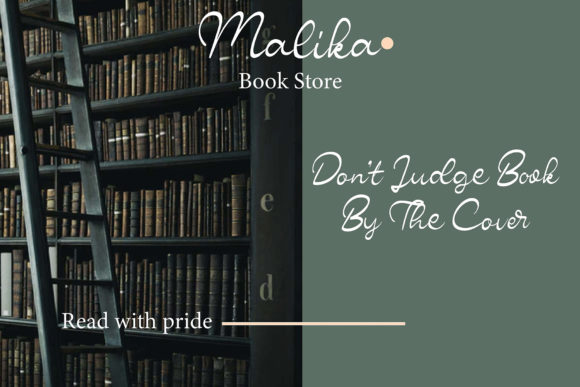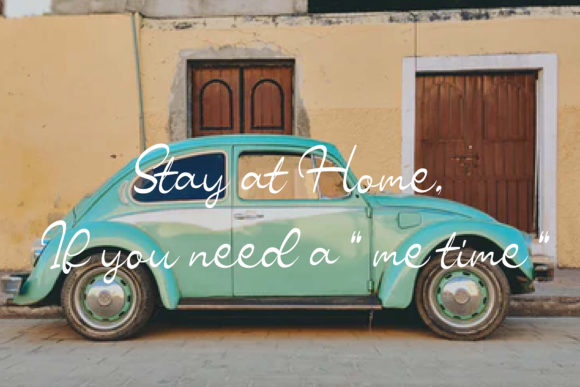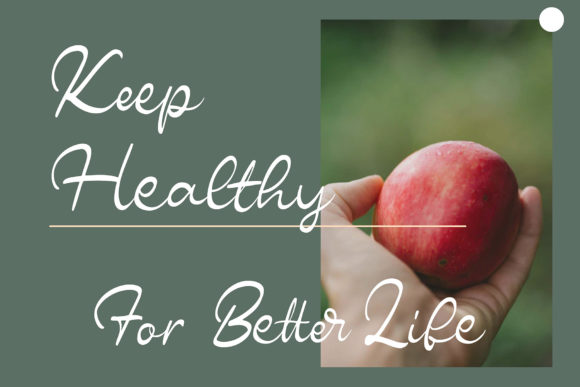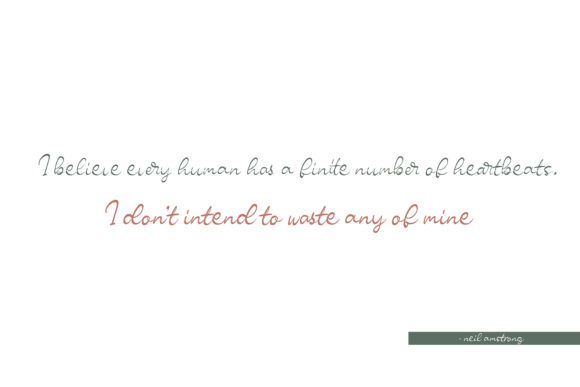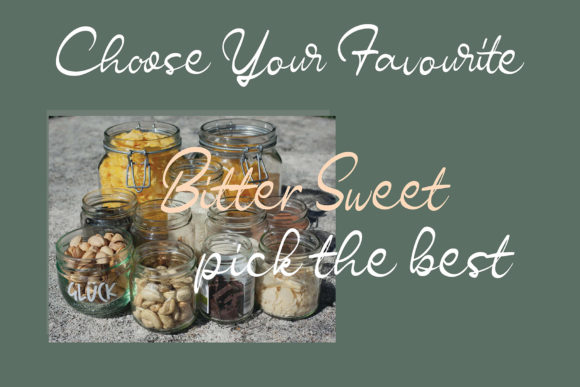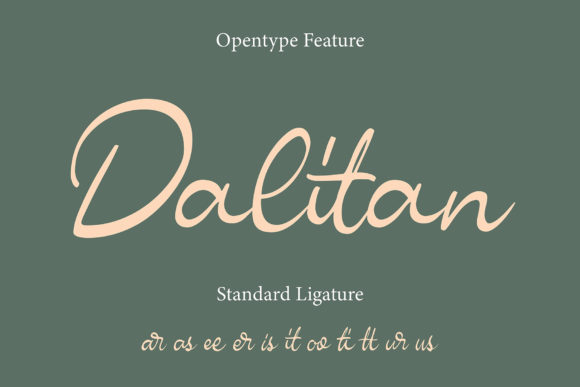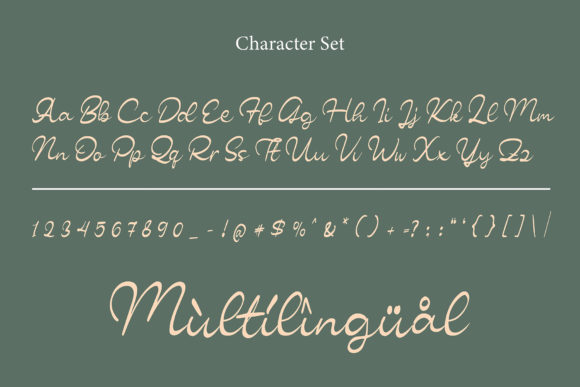
Amaryllis Font
About Amaryllis Font
Amaryllis is a delicate and classic calligraphic script font. Fashionable and unique, this font will elevate each of your favorite designs!